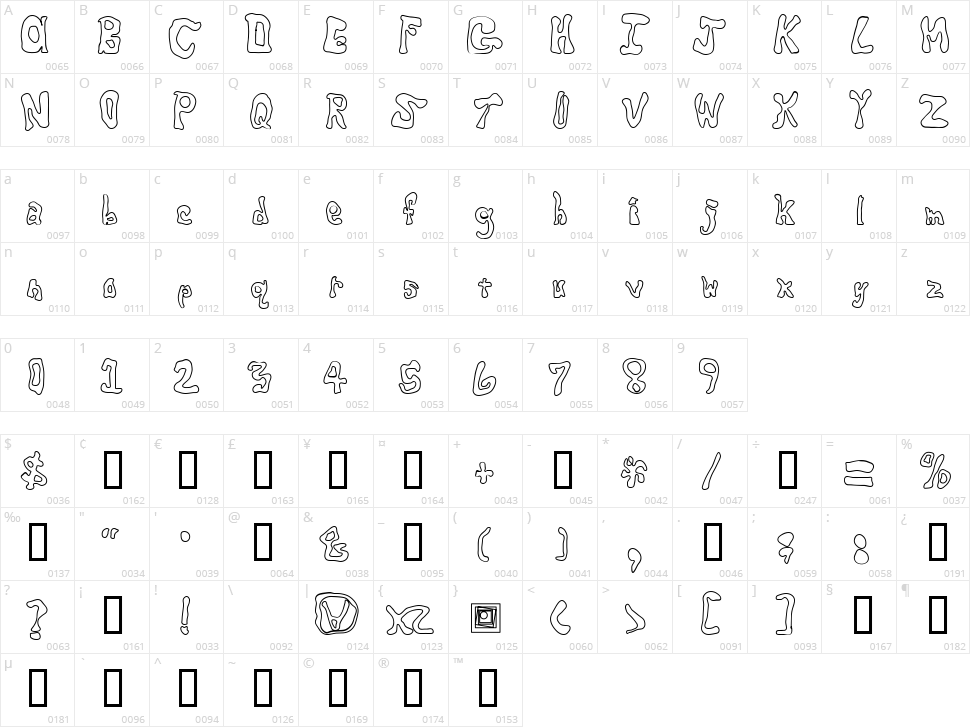
Critter is rad
Critter is Rad
This girl that ill just call "nutcase" that I
always talk to when I'm up late making fonts
(because I dont think she sleeps), but anyway
I said that if she was nice I'd turn her into
a font. So here it is.. I took the font
Oscifer, made it into an outline and for the
final touch, I had my pet monkey "Mr Pingle"
kern it.. Now granted Mr Pingle never went
to design school or nothing, but he can still
kern with the best of em..